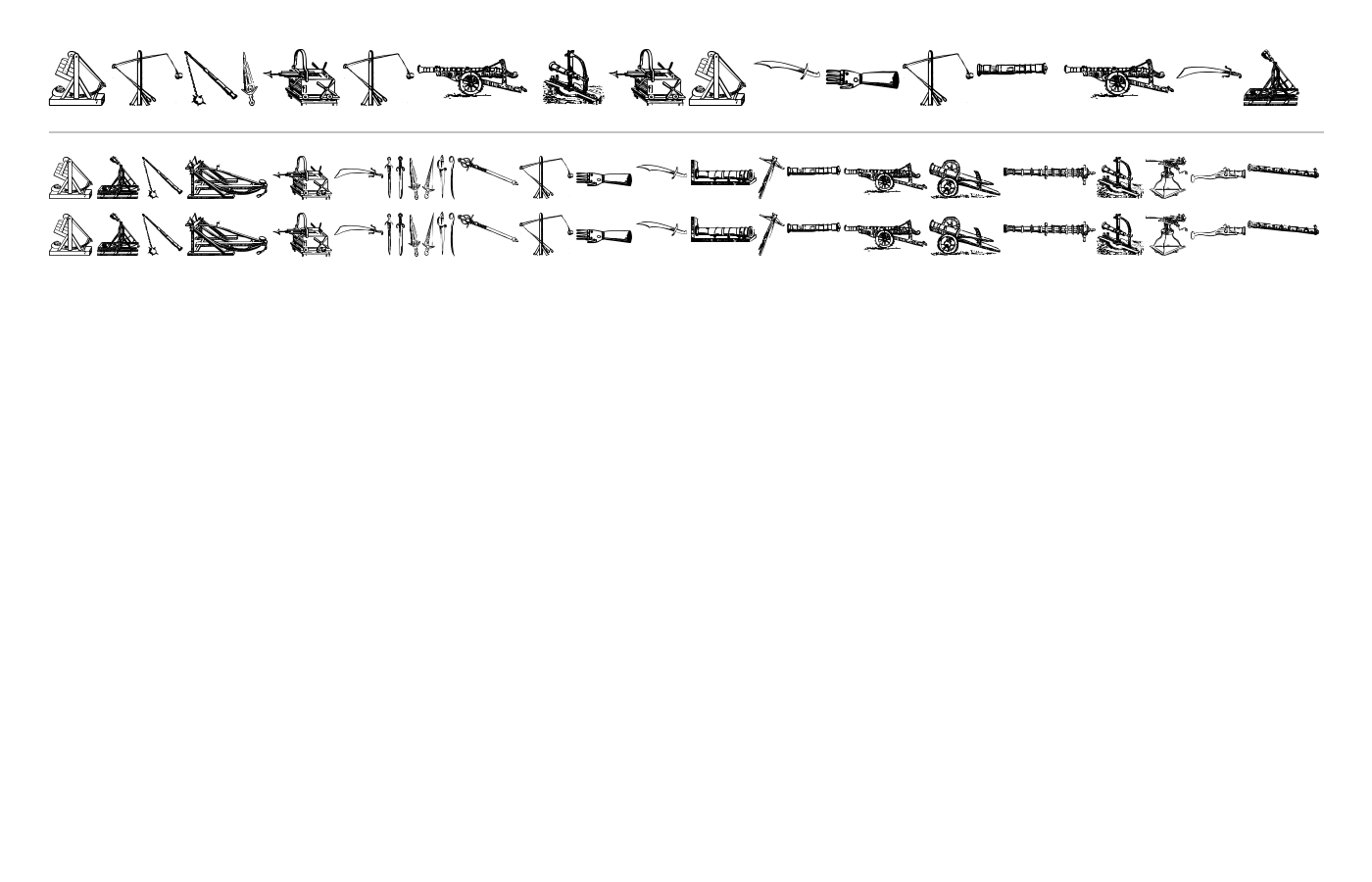
Ancient Weapons tfb is a decorative symbol font showcasing detailed illustrations of historical weapons and siege engines, rather than traditional letterforms. Its intricate, vintage-style designs make it ideal for use in themed projects such as historical publications, game graphics, or educational materials where conveying an old-world or medieval atmosphere is desired. This font adds unique visual interest and storytelling elements, making it best suited for headings, logos, or creative displays that benefit from ornamental iconography.
Ancient Weapons tfb Font
About Ancient Weapons tfb Font